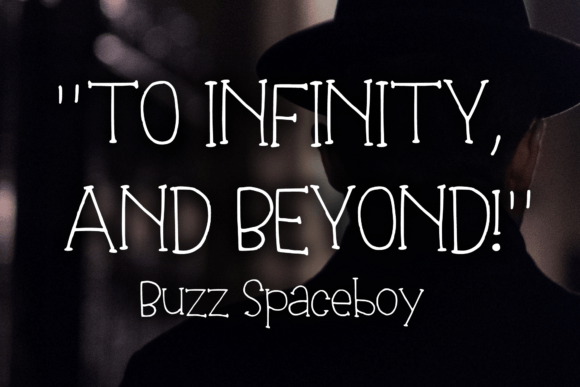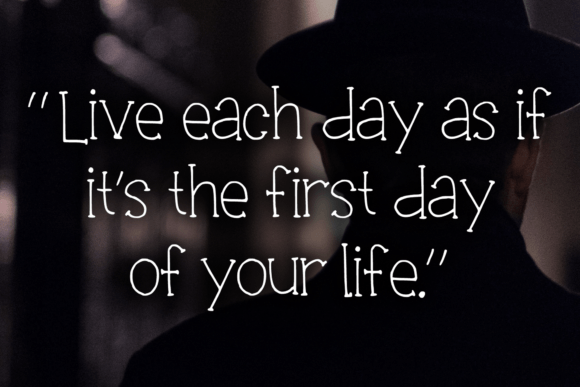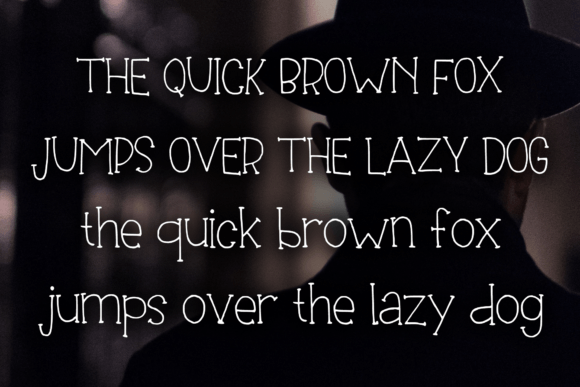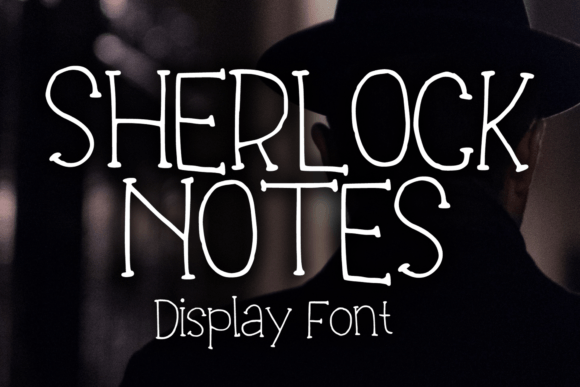
Introduction to Sherlock Notes Font
Sherlock Notes is a cool detective-themed handwritten font.
It will elevate a wide range of design projects to the highest level You can use this font for many design ideas such as stickers, t-shirt designs, amazing logo designs, magazine or book covers, comics, cartoon drawings, and many more.
Sherlock Notes Font offers exceptional quality and versatility, making it a valuable addition to your design toolkit. Whether you’re creating for personal projects or commercial use, Sherlock Notes Font delivers professional results.